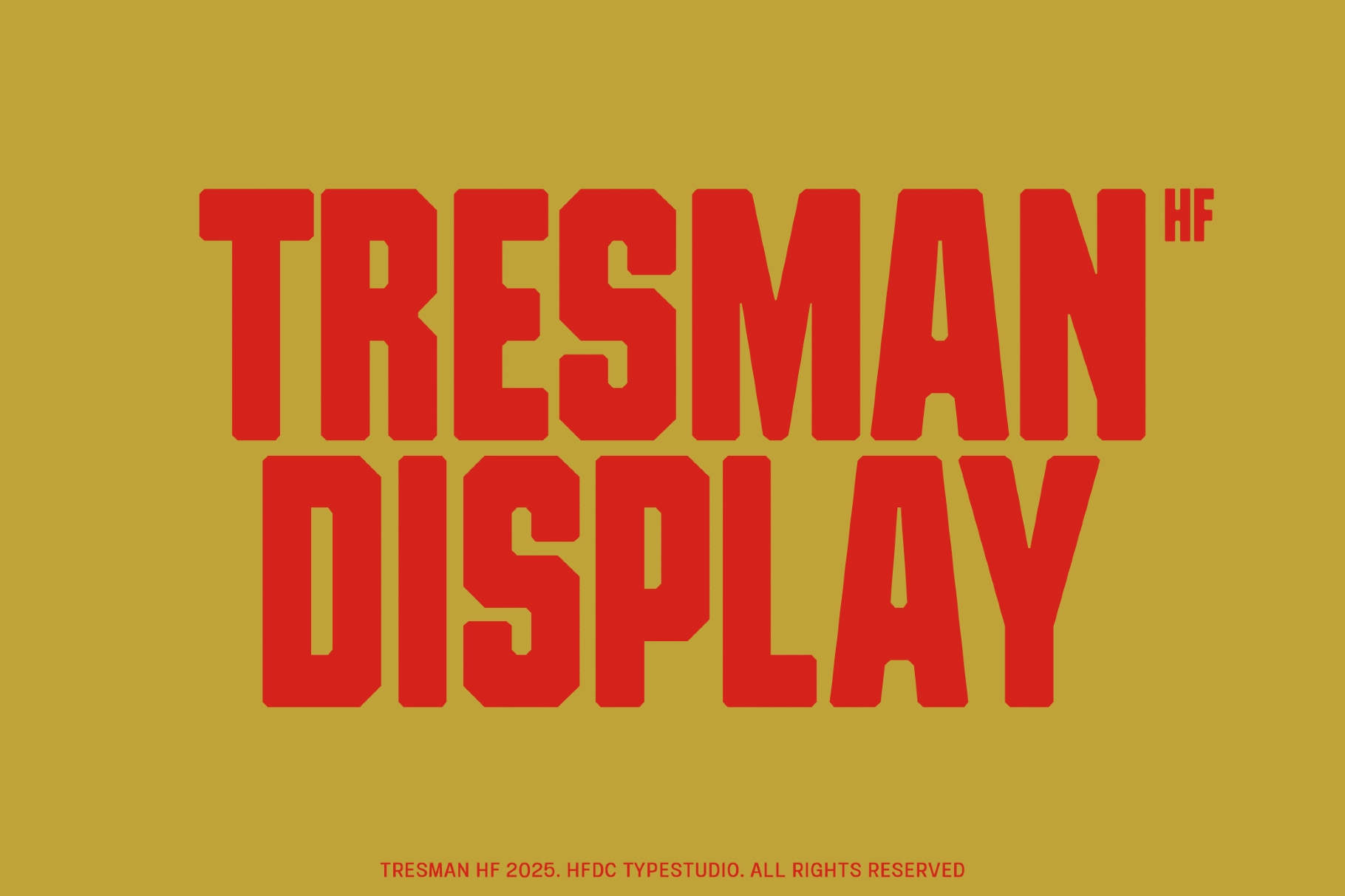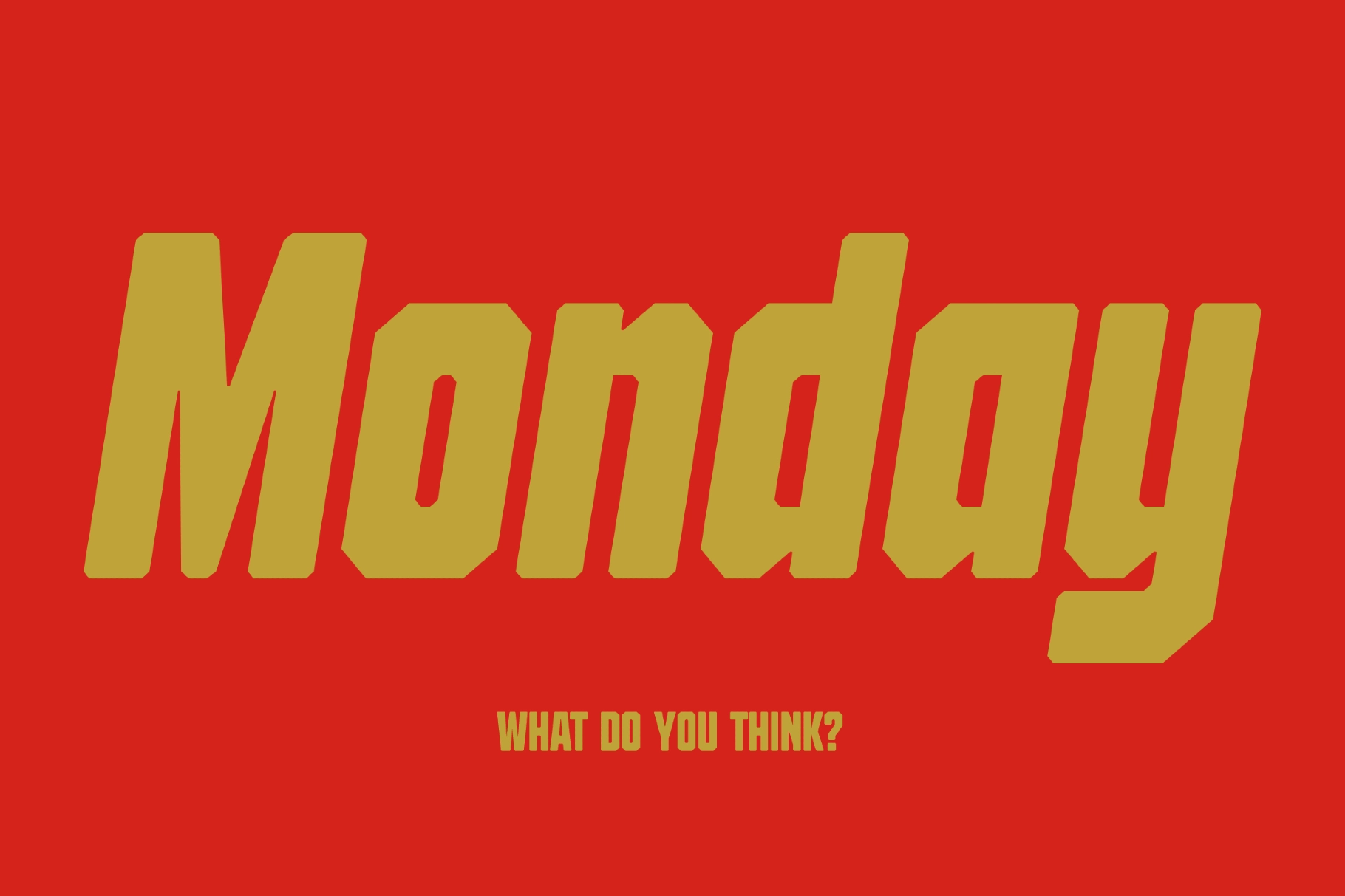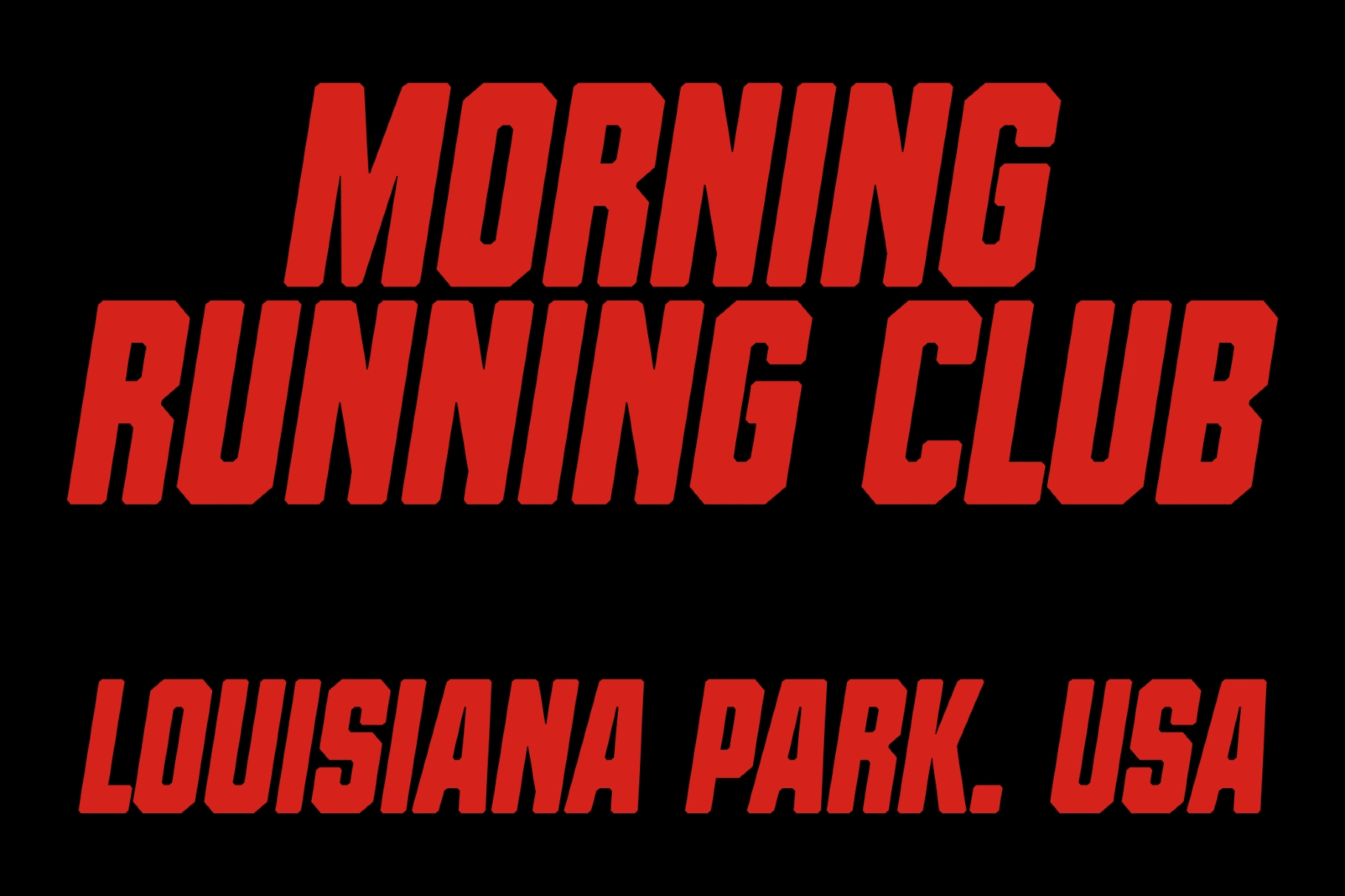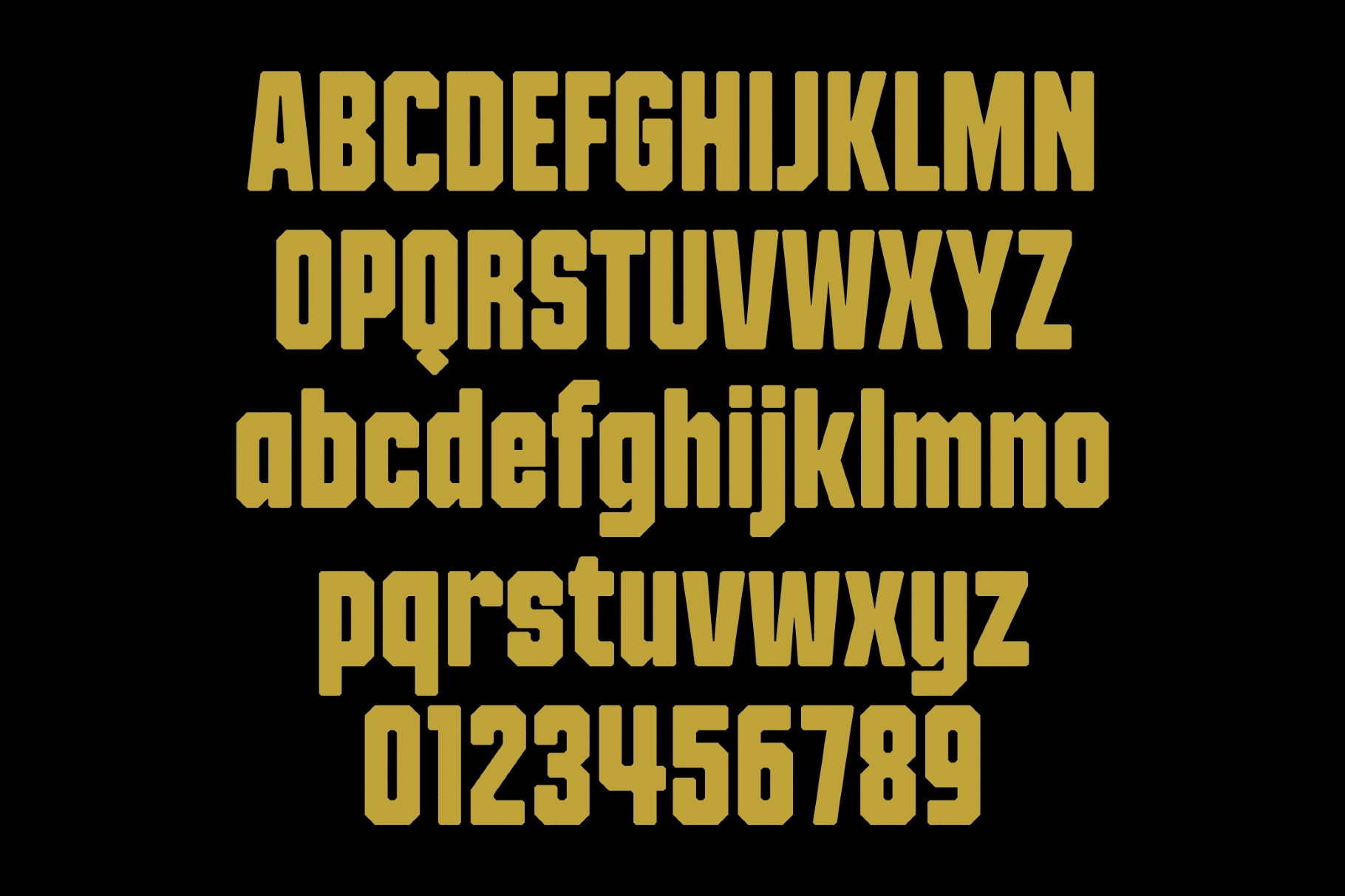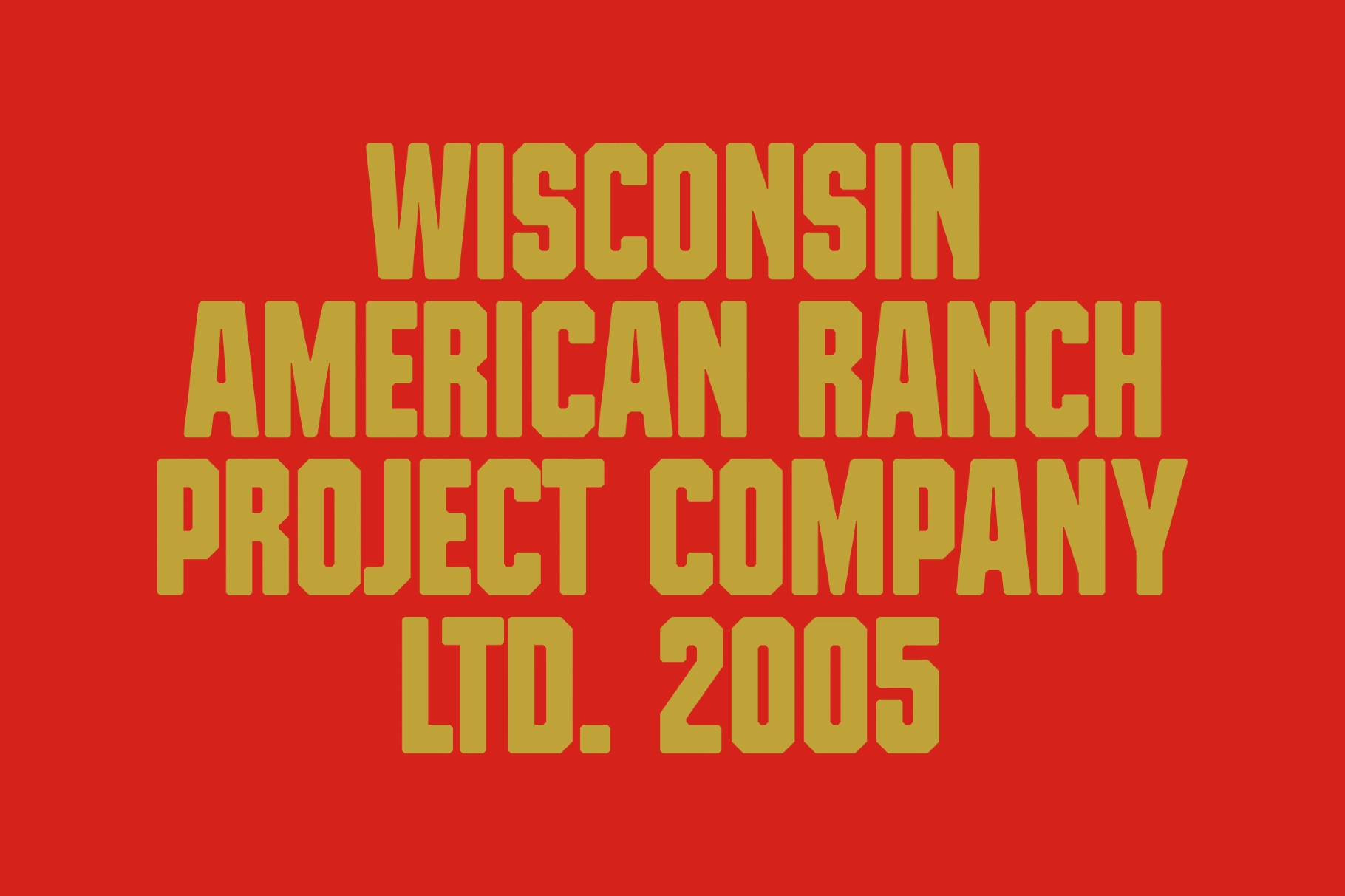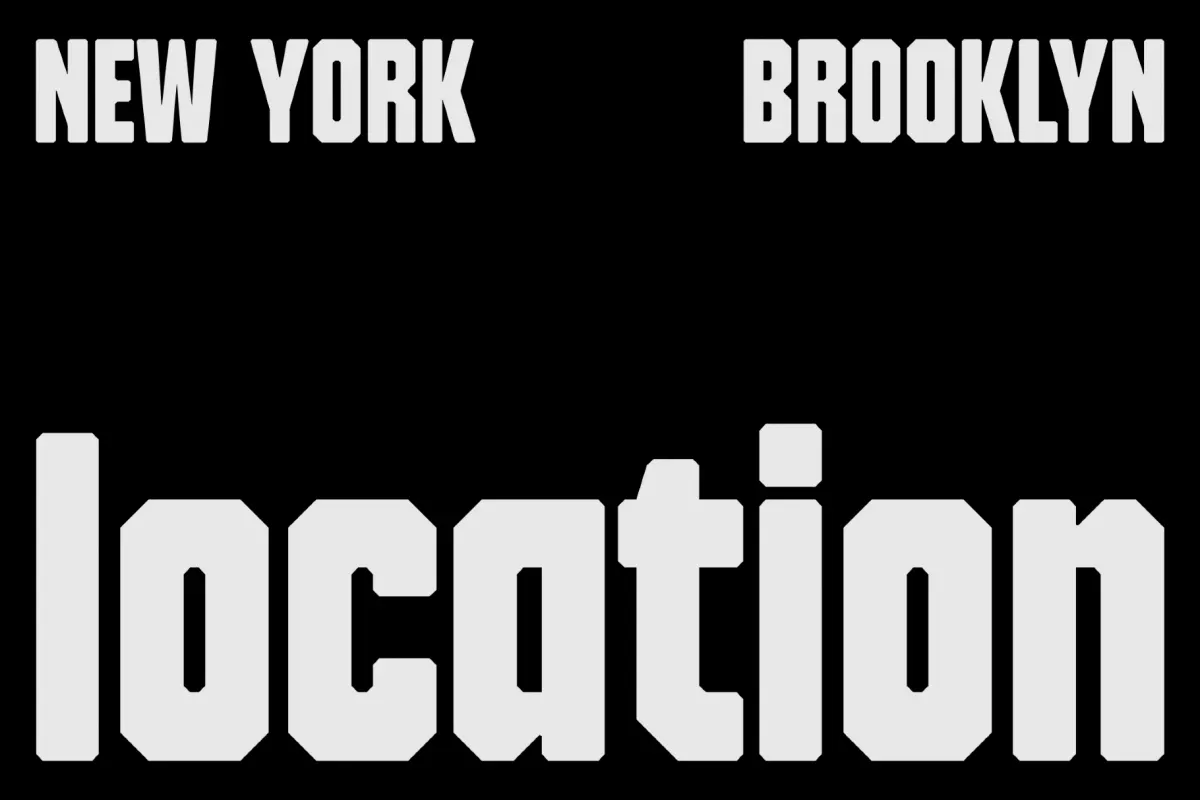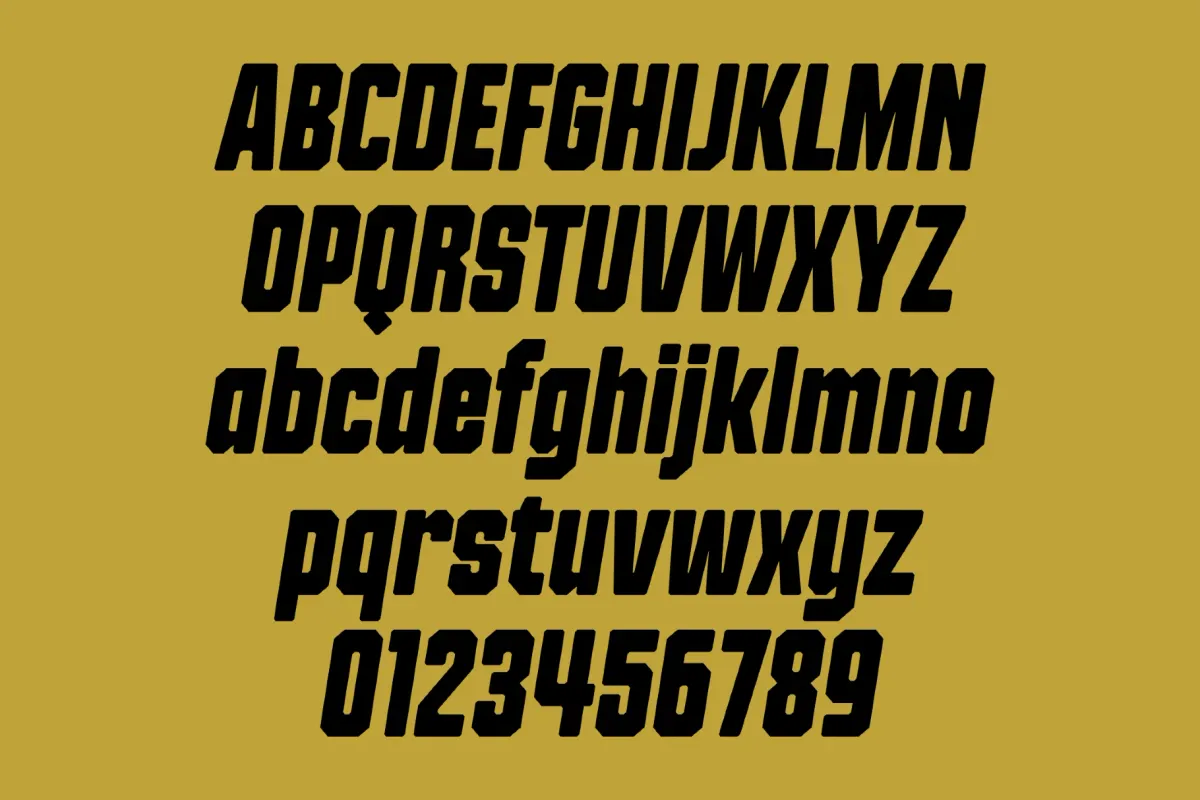
Tresman College Font
TresmanHF
Make your designs stand out with Tresman College Font , a strong and confident display typeface inspired by vintage college lettering and classic sports aesthetics. Its bold character and powerful lines convey energy, determination, and competitive spirit — perfect for projects that demand high visual impact.
Available in Regular and Italic styles, Tresman College Font is ideal for sports branding, team jerseys, merchandise, posters, apparel, and digital graphics. Its clean yet dynamic structure preserves readability while evoking the timeless appeal of athletic design.
- Style: Regular & Italic
- Perfect for Branding, Sports Graphics, Posters, Signage, and More